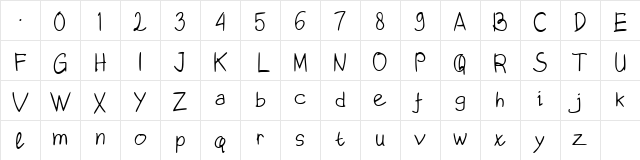
Complete Santosa Handwriting Sample Regular glyph index. Displaying only characters natively supported by Santosa Handwriting Sample Regular font.
Santosa Handwriting Sample flows with the natural rhythm of handwritten lettering, making it ideal for designs that call for warmth and personal expression.
Font Pairing: Combine Santosa Handwriting Sample with a simple geometric sans for maximum contrast - the tension between flowing curves and clean structure is a classic typographic pairing.
Pro Tip: Use Santosa Handwriting Sample for short runs of text - names, titles, or taglines. Extended body copy in script faces tires the eye quickly.